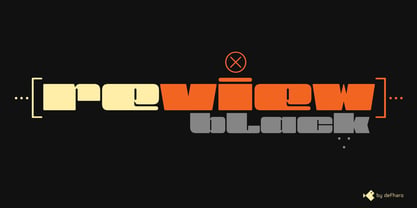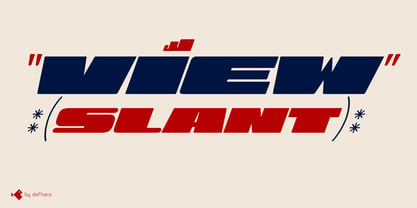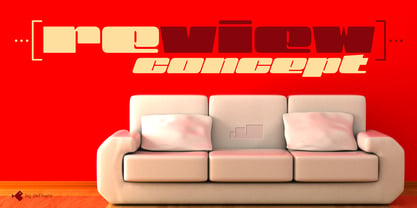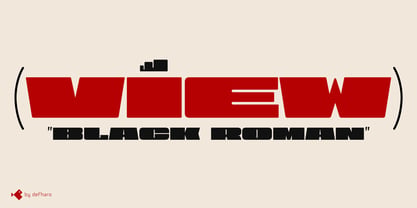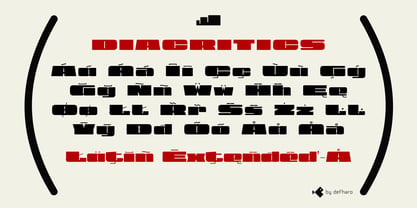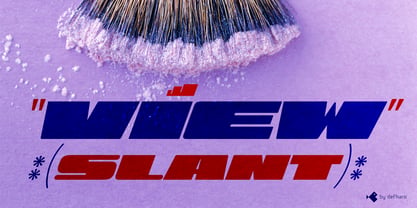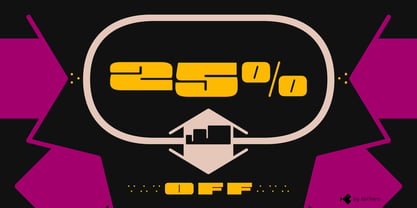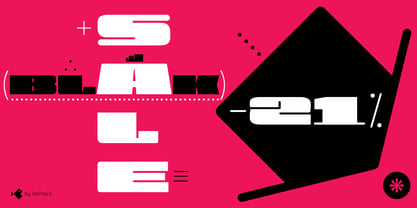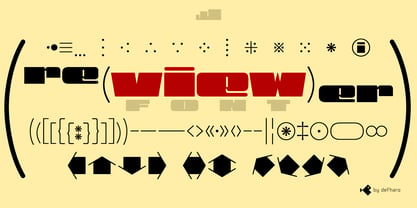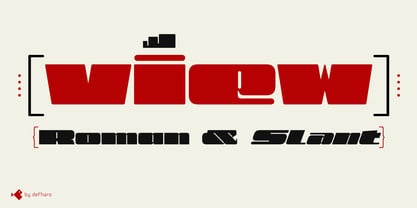
View Black
by deFharo
The View Black Font Family was designed by Fernando Haro and published by deFharo. View Black contains 2 styles and family package options. More about this family
View is designed to stand out, make an impact, and dominate any visual space with elegance. Its exaggeratedly wide proportions and black weight don't ask for permission: each letter is a statement of presence, an explosion of character that doesn't go unnoticed. It's made for those who appreciate the impact of super-thick and extra-wide typefaces. Its shapes are pure power, with a perfect balance between the strength of the Roman style and the dynamism of the Slanted. Ideal for headlines that want to be heard, for brands that want to stand out, or for designs that demand character. Designed in two versions —Roman and Slant— View is a font that combines the strength of a powerful stroke with the elegance of refined details. One of View Black's most distinctive features is its punctuation marks: extra-thin, precise, and ethereal, they add air, rhythm, and an unexpected dose of sophistication. The deliberate contrast creates a fascinating visual tension with the bulk of the letters. I've also included some additional punctuation marks, which you can use as design elements, opening up a world of creative possibilities. View Black is equipped with cutting-edge OpenType features: font alternates, automatic fractions, mathematical symbols, arrows, and much more. It also supports the Latin Extended-A character set, so it's ready to interact with a wide range of languages.
Designers: Fernando Haro
Foundry: deFharo